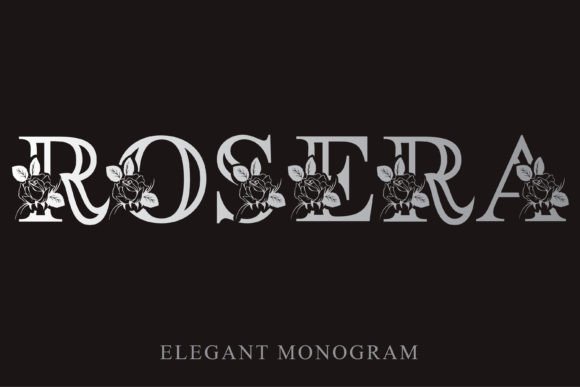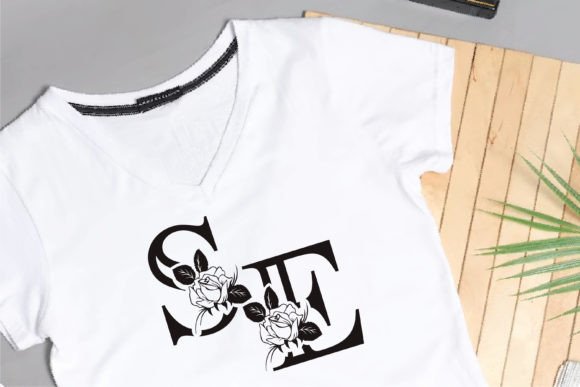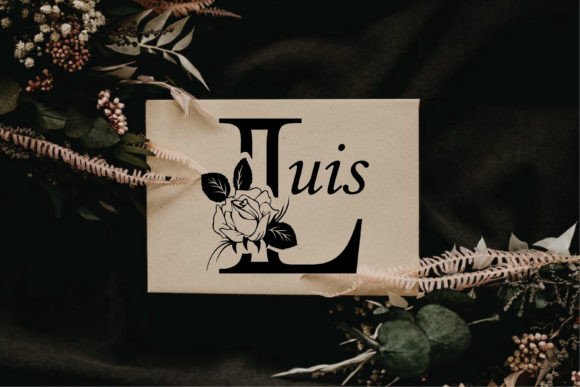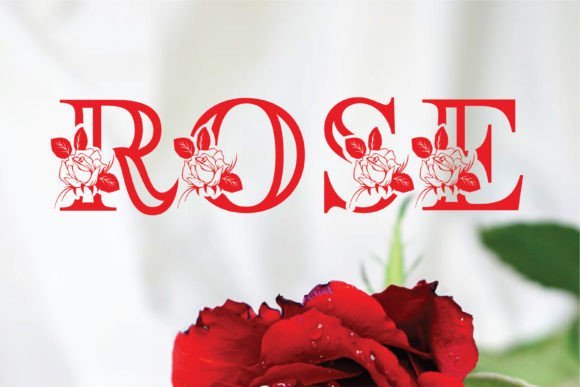
Introduction to Rosera Monogram Font
Rosera Monogram is a delicate and highly detailed decorative font.
Fall in love with its authentic feel and use it to create gorgeous invitations, beautiful stationary art, eye-catching social media posts, and cute greeting cards Add this beautiful font to each of your creative ideas and notice how it makes them stand out.
Key Features of Rosera Monogram Font
Why Choose Rosera Monogram Font?
Rosera Monogram Font offers exceptional quality and versatility, making it a valuable addition to your design toolkit. Whether you’re creating for personal projects or commercial use, Rosera Monogram Font delivers professional results.